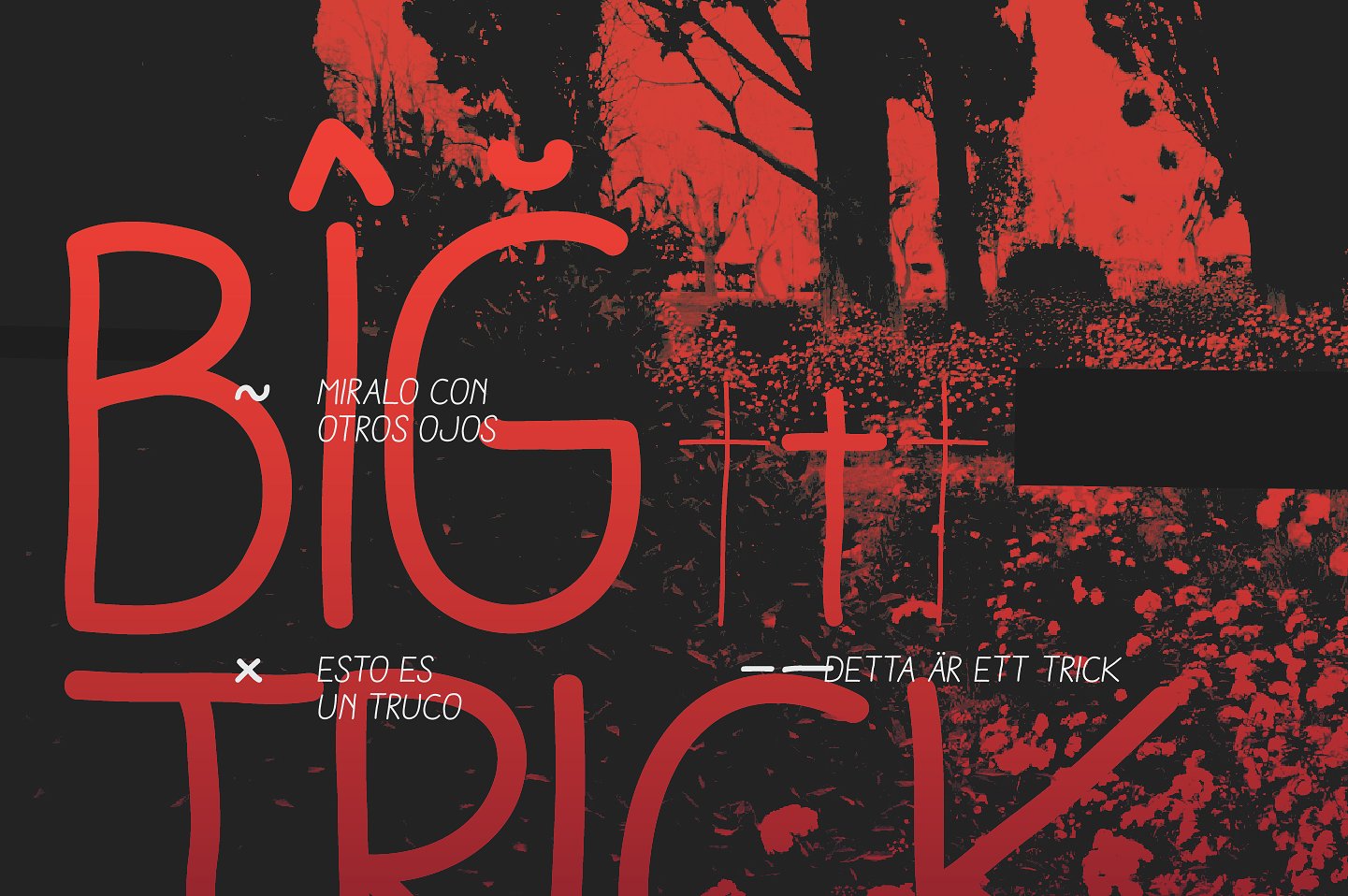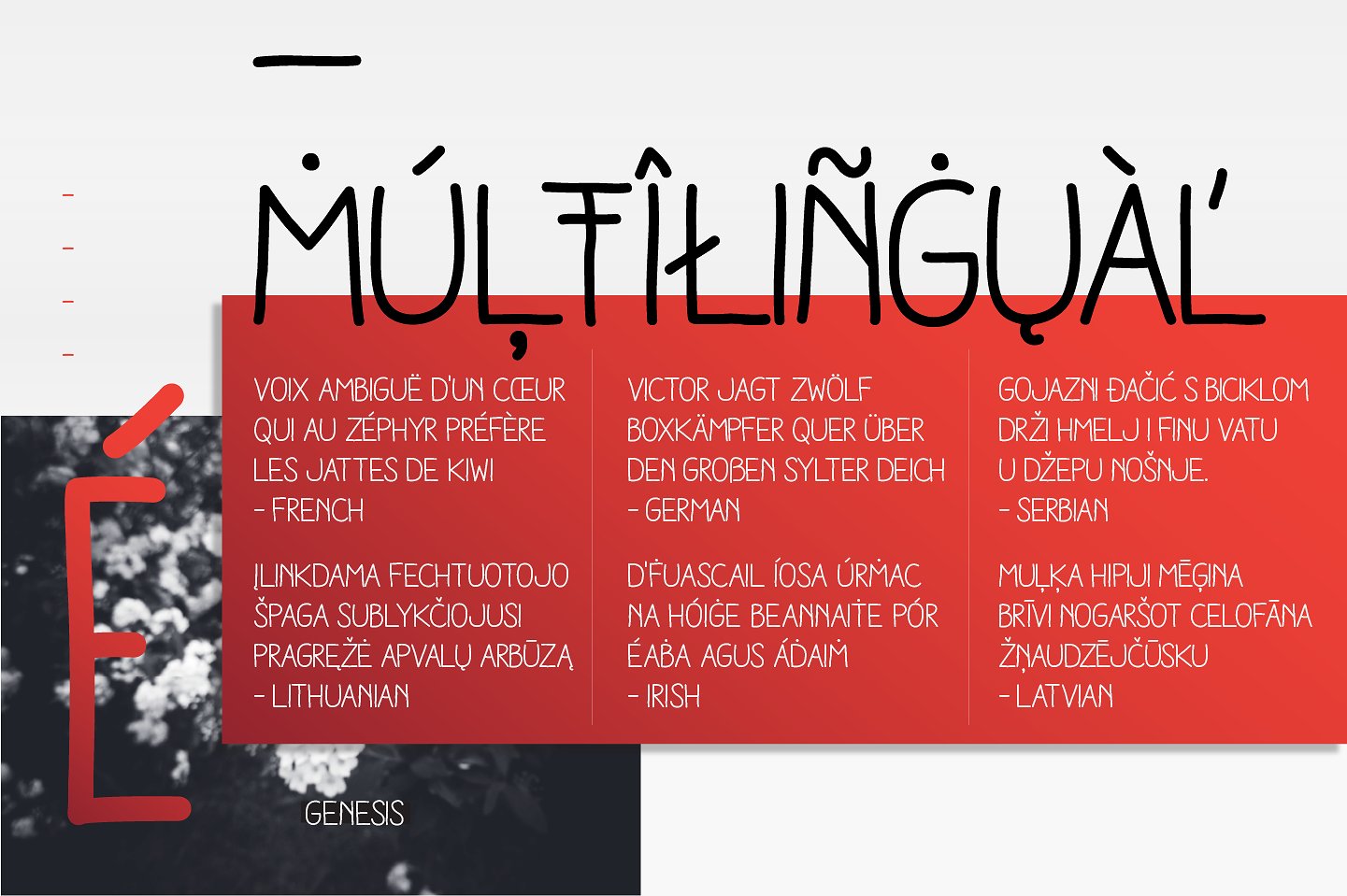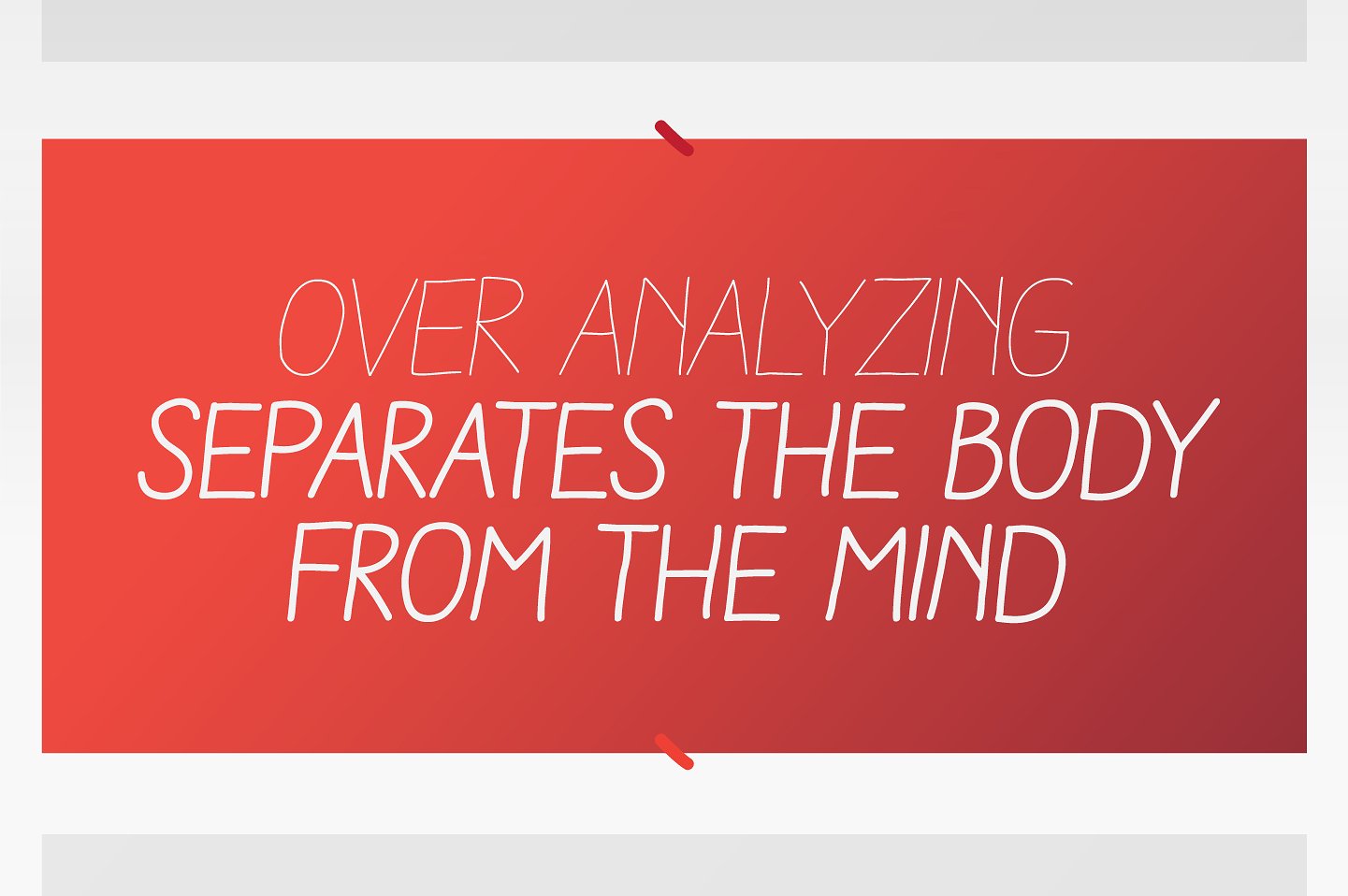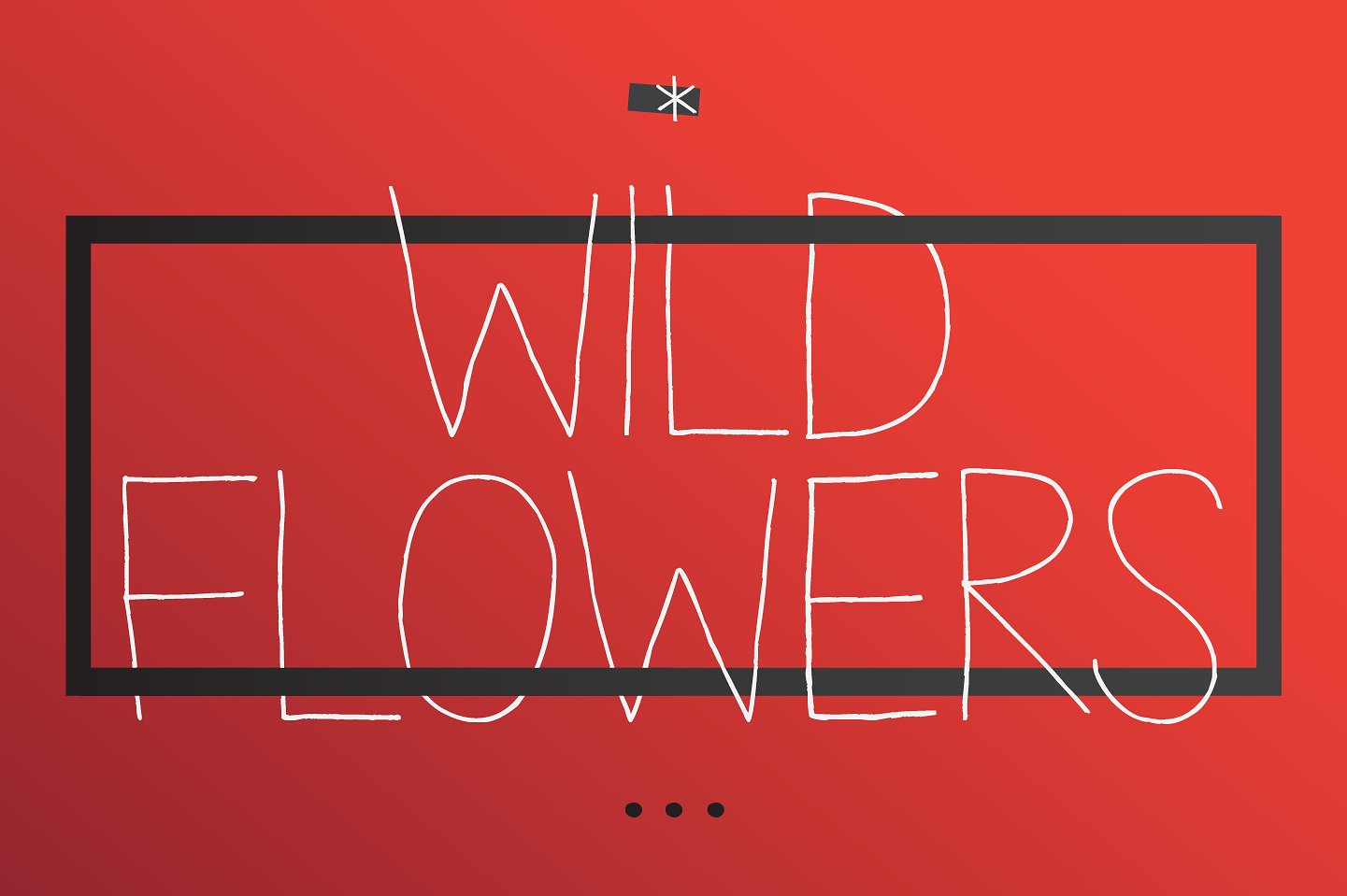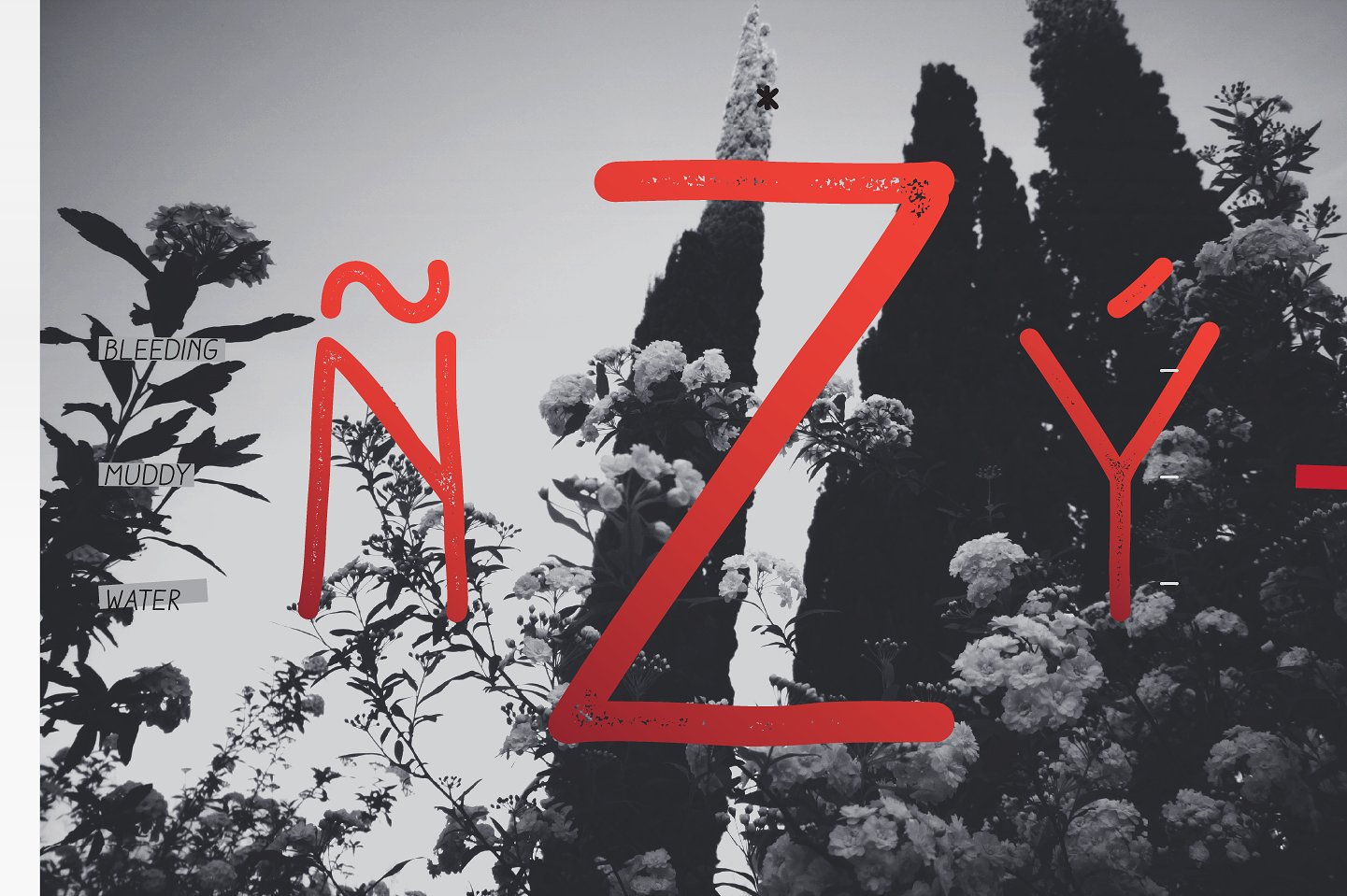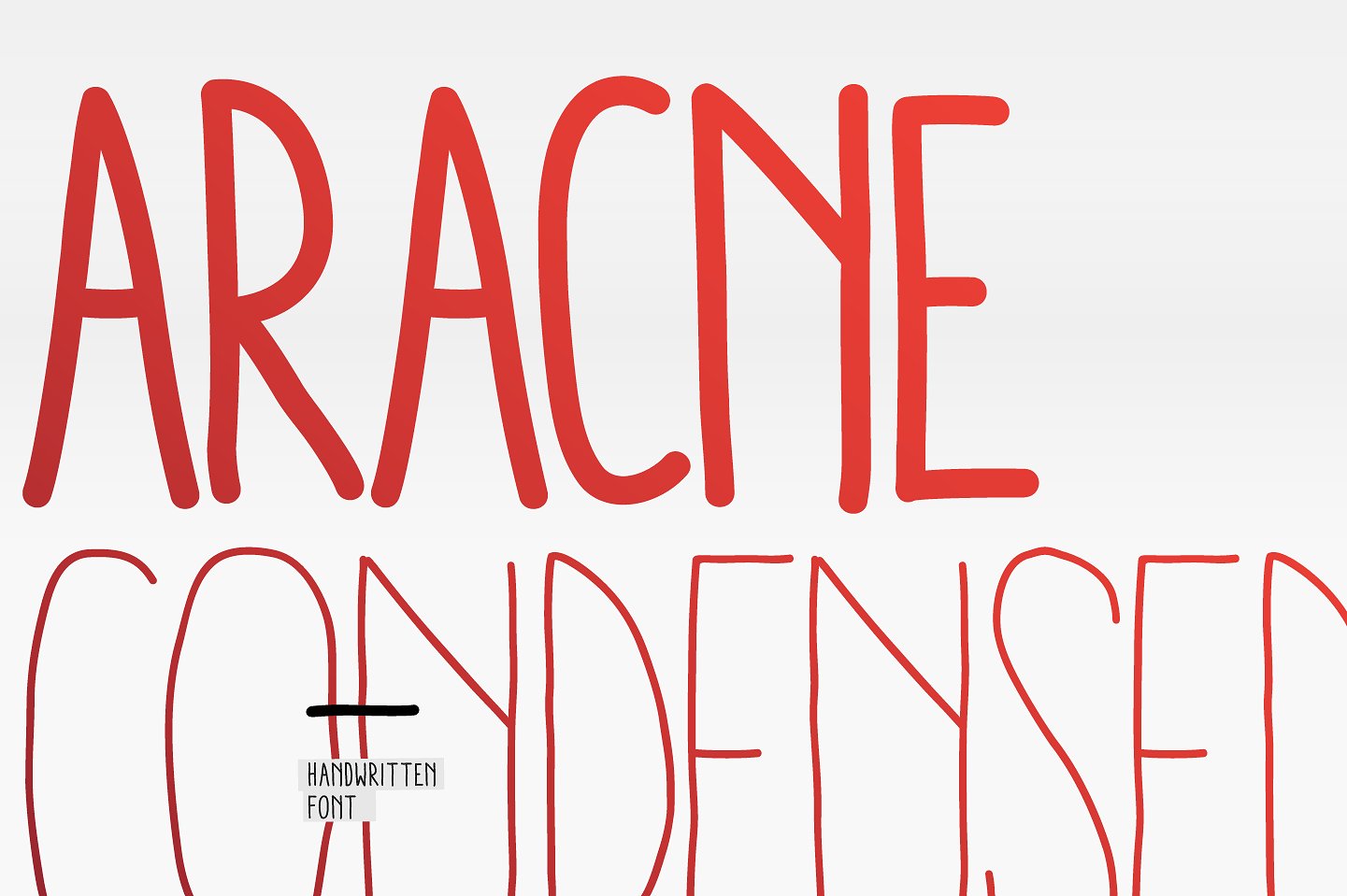
Aracne Condensed Font: The Perfect Choice for Creative Projects
If you’re a designer or crafter looking for a unique and stylish font to add a personal touch to your creative projects, look no further than Aracne Condensed Font. This gorgeous font is the sister font of Aracne, offering the same uniqueness and style but in a more condensed style. With its casual quality and ton of personality, Aracne Condensed Font is sure to elevate your designs and make them stand out from the crowd.
What is Aracne Condensed Font?
Aracne Condensed Font is a modern, sans-serif font that is designed to be both stylish and versatile. It is a condensed version of the original Aracne font, which means that it has a more compact and streamlined look. This makes it perfect for use in a variety of creative projects, from branding and advertising to packaging and web design.
Key Features of Aracne Condensed Font
So, what sets Aracne Condensed Font apart from other fonts? Here are some of its key features:
• Unique and stylish design: Aracne Condensed Font has a distinctive look that is both modern and elegant. Its clean lines and simple shapes make it easy to read and visually appealing.
• Casual quality: This font has a friendly, approachable feel that makes it perfect for use in creative projects where you want to add a personal touch.
• Tons of personality: Aracne Condensed Font has a lot of character and can help you add a unique touch to your designs.
• Condensed style: The condensed style of this font makes it perfect for use in projects where you need to fit a lot of text into a small space.
How to Use Aracne Condensed Font
Aracne Condensed Font is a versatile font that can be used in a wide range of creative projects. Here are some ideas for how you can use it:
• Branding and advertising: Use Aracne Condensed Font to create eye-catching logos, ads, and marketing materials that stand out from the crowd.
• Packaging design: This font is perfect for use on product labels, packaging, and other materials where you need to fit a lot of text into a small space.
• Web design: Aracne Condensed Font can be used to create stylish and modern website headers, titles, and other text elements.
• Crafting and DIY projects: This font is also great for use in crafting and DIY projects, such as making signs, banners, and other decorative items.
Tips for Getting the Most Out of Aracne Condensed Font
Here are some tips for getting the most out of Aracne Condensed Font:
• Experiment with different sizes and colors: Aracne Condensed Font looks great in a variety of sizes and colors, so don’t be afraid to experiment and find the combination that works best for your project.
• Pair it with other fonts: This font pairs well with a variety of other fonts, so try combining it with other fonts to create a unique and interesting look.
• Use it consistently: To get the most out of Aracne Condensed Font, use it consistently throughout your project. This will help to create a cohesive and professional-looking design.
Aracne Condensed Font is a unique and stylish font that is perfect for use in a wide range of creative projects. With its casual quality and ton of personality, it’s sure to add a personal touch to your designs and make them stand out from the crowd. Whether you’re a designer, crafter, or DIY enthusiast, Aracne Condensed Font is a great choice for anyone looking to add a little extra something to their projects.